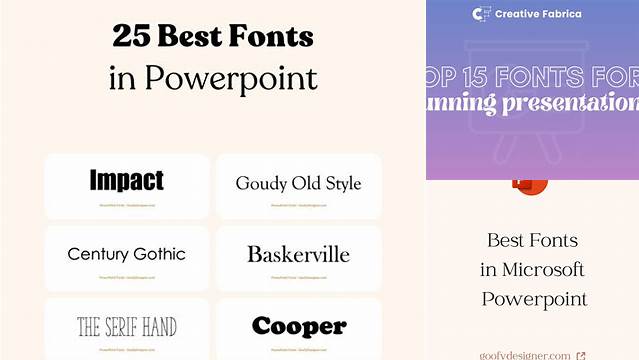
Aesthetic Fonts For PowerPoint: Presentation Perfection
Are you tired of the same old boring PowerPoint presentations? Do you want to make your slides pop and grab your audience's attention? Well, aesthetic fonts are the secret weapon you've been missing! They can transform a dull presentation into a visually stunning masterpiece. Let's dive into the world of aesthetic fonts for PowerPoint, exploring the best choices, how to use them effectively, and tips for creating presentations that leave a lasting impression.
Choosing the Right Aesthetic Fonts: Setting the Tone
Choosing the right aesthetic fonts is the first step towards creating visually appealing presentations. The font you select sets the tone and personality of your slides. Consider these factors when making your decision:
- Target Audience: Who are you presenting to? A formal business audience might appreciate clean, professional fonts, while a creative group might respond well to more playful or artistic styles. Think about their preferences and expectations.
- Presentation Topic: What's your presentation about? A tech talk might suit modern, minimalist fonts, whereas a historical presentation could benefit from vintage or classic fonts. Match the font's style to your subject matter.
- Brand Identity: Does your company or project have an established brand? If so, use fonts that align with your brand's visual identity to maintain consistency. This helps reinforce your brand's image and makes your presentation instantly recognizable.
- Readability: Always prioritize readability. No matter how beautiful a font is, if it's hard to read, it's a deal-breaker. Ensure your chosen font is easy to read on a screen, especially from a distance. Test your fonts on various screen sizes to ensure legibility.
Here are some popular categories of aesthetic fonts with examples to get you started:
Modern and Minimalist Fonts
Modern fonts often feature clean lines and a sleek appearance. They're perfect for presentations that need to convey a sense of professionalism, efficiency, and sophistication. Examples include: Roboto, Open Sans, Montserrat, and Lato. These fonts are highly readable and versatile, making them suitable for a wide range of topics. Use them for headings, body text, and even supporting graphics.
Elegant and Serif Fonts
Serif fonts have small decorative strokes at the ends of the letterforms, giving them a classic and elegant look. They can add a touch of formality and sophistication to your presentations. Examples include: Playfair Display, Libre Baskerville, and Georgia. These fonts work well for headings, particularly in presentations that focus on history, art, or luxury.
Playful and Handwritten Fonts
These fonts bring a personal, friendly touch to your presentations. They're great for presentations aimed at younger audiences, creative projects, or anything that needs a more casual feel. Examples include: Pacifico, Caveat, and Amatic SC. But, be careful not to overdo them, they can be challenging to read in large blocks of text.
Bold and Decorative Fonts
Bold fonts make a statement! They're attention-grabbing and can be used to highlight key points or create a striking visual effect. Examples include: Bebas Neue, Anton, and Impact. Use these fonts sparingly, as too much of them can overwhelm your audience.
- Choose Fonts: Select a primary font for your headings and a secondary font for your body text. Consider pairing fonts that complement each other. For instance, a bold heading font with a clean body font can create a balanced look. Ensure that your font choices work well together.
- Apply to Text Boxes: In PowerPoint, select your text boxes and choose your desired fonts from the font menu. You can also set default fonts for your presentation theme. Select the text box you want to format, navigate to the 'Home' tab, and choose the font you wish to implement. Be sure to modify the font size to maintain readability.
- Use Font Styles Consistently: Apply your fonts consistently throughout your presentation to maintain a cohesive design. Define a style guide with specific fonts for headings, subheadings, and body text.
- Consider Font Weight and Size: Experiment with font weights (e.g., light, regular, bold) and sizes to create visual hierarchy. Use bolder fonts for headings and smaller fonts for body text. Ensure your text is large enough to be easily read from a distance, particularly if you're using decorative fonts.
The Power of Fonts: Making Your PowerPoint Stand Out
So, there you have it! By choosing the right aesthetic fonts and implementing them effectively, you can transform your PowerPoint presentations from boring to brilliant. Remember to consider your audience, topic, and brand identity when selecting fonts. Always prioritize readability and consistency. Combine these tips with high-quality images, a consistent color palette, and strategic use of white space to create presentations that captivate and impress. By taking the time to choose and implement your fonts, you can boost your PowerPoint presentations, making them eye-catching and memorable. Now go forth and create presentations that will leave your audience wanting more! Let's make those slides shine and grab everyone's attention. Good luck!